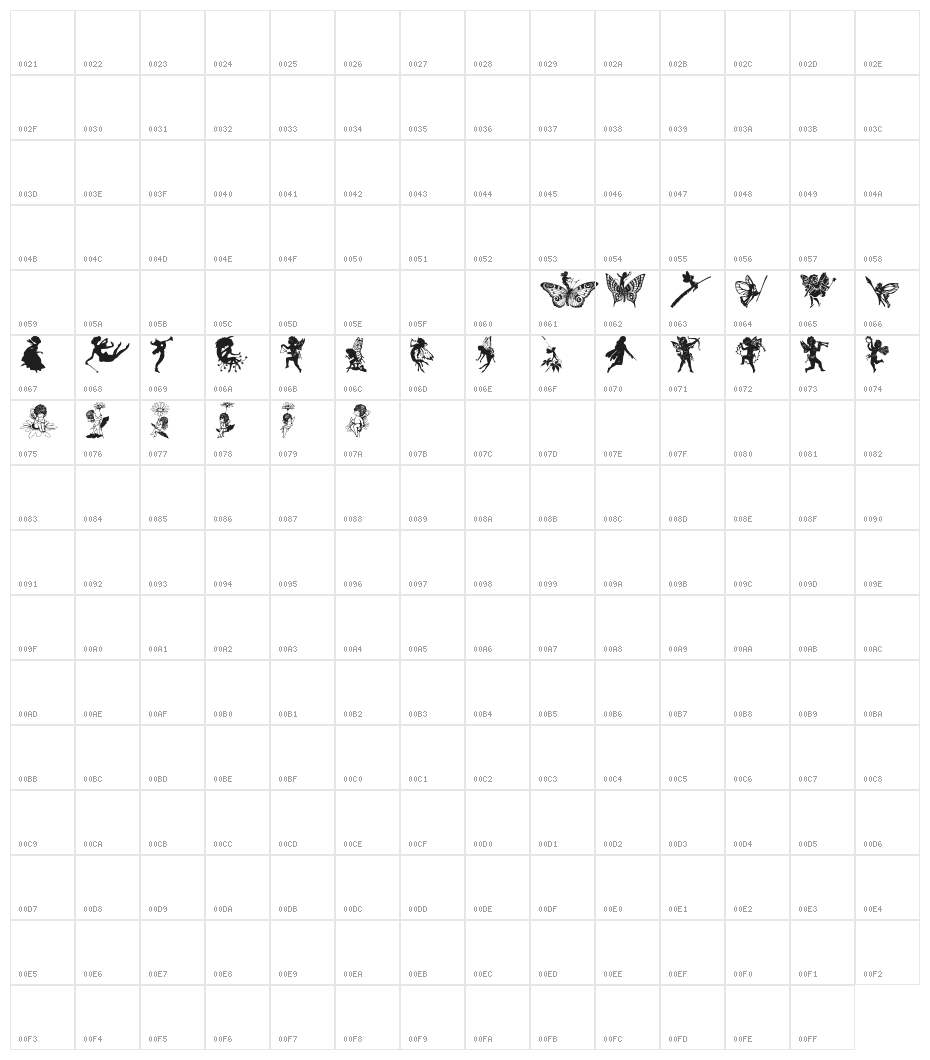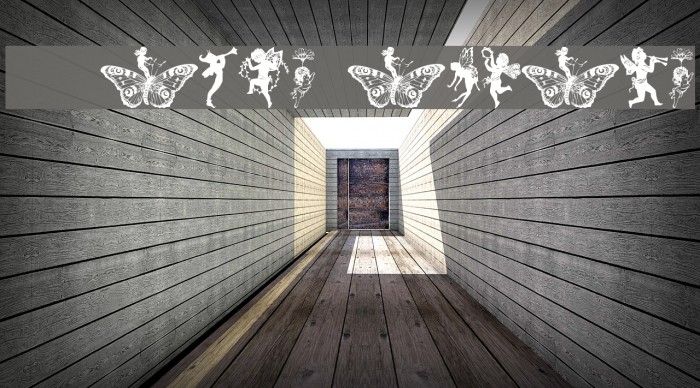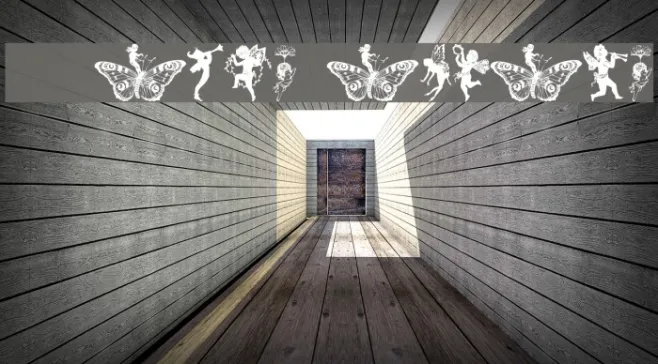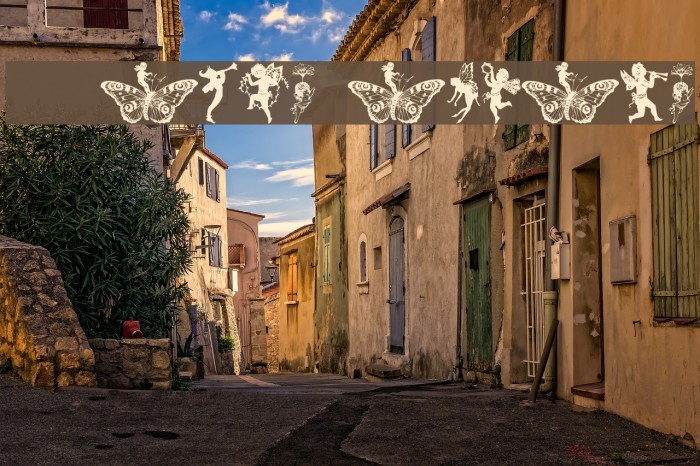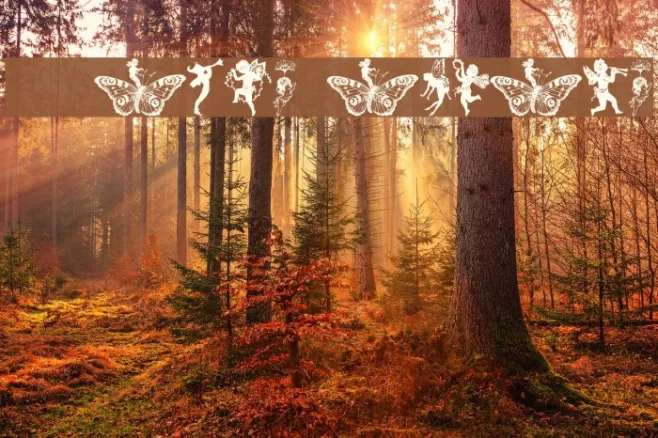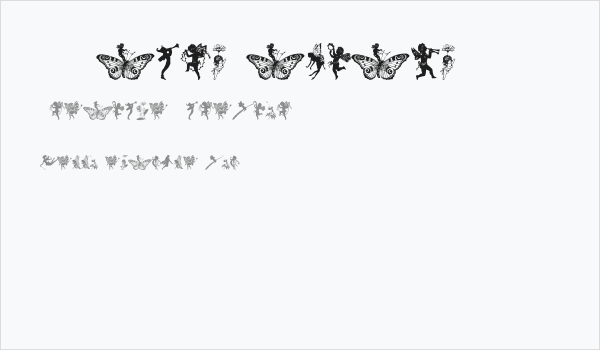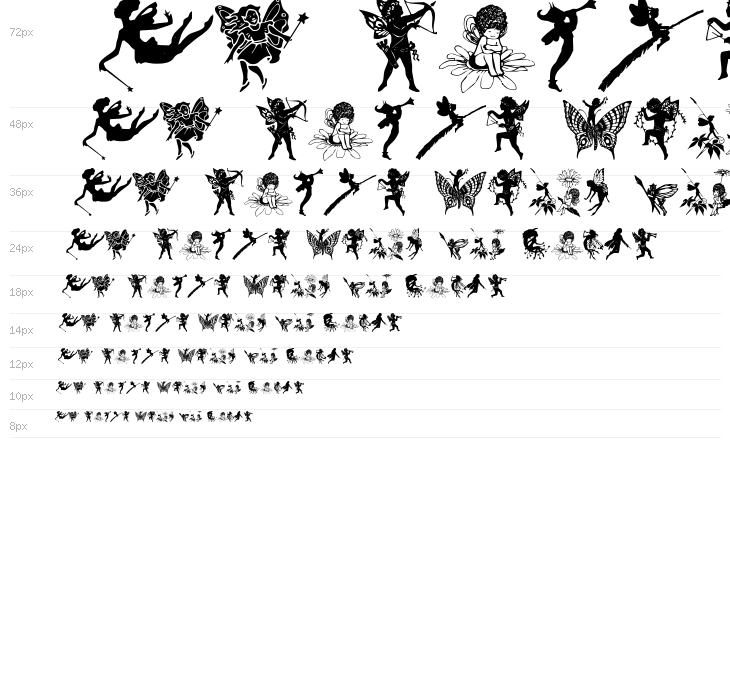
WWFairyFantasy Font
WWFairyFantasy Description
This is not a traditional font but rather a collection of whimsical fairy and fantasy-themed silhouettes. Each character is represented by a unique fairy or fantasy figure, showcasing intricate details and playful designs. The figures include fairies with wings, mythical creatures, and other fantasy elements, each with a distinct pose and style. The overall design is decorative and artistic, capturing the essence of fantasy and imagination. These silhouettes are ideal for creative projects that require a touch of magic and whimsy.
| Use Case | Decorative art, Illustrations, Themed invitations |
| Proposed Projects | Ideal for fantasy-themed invitations, children's book illustrations, scrapbooking, and decorative art projects. |